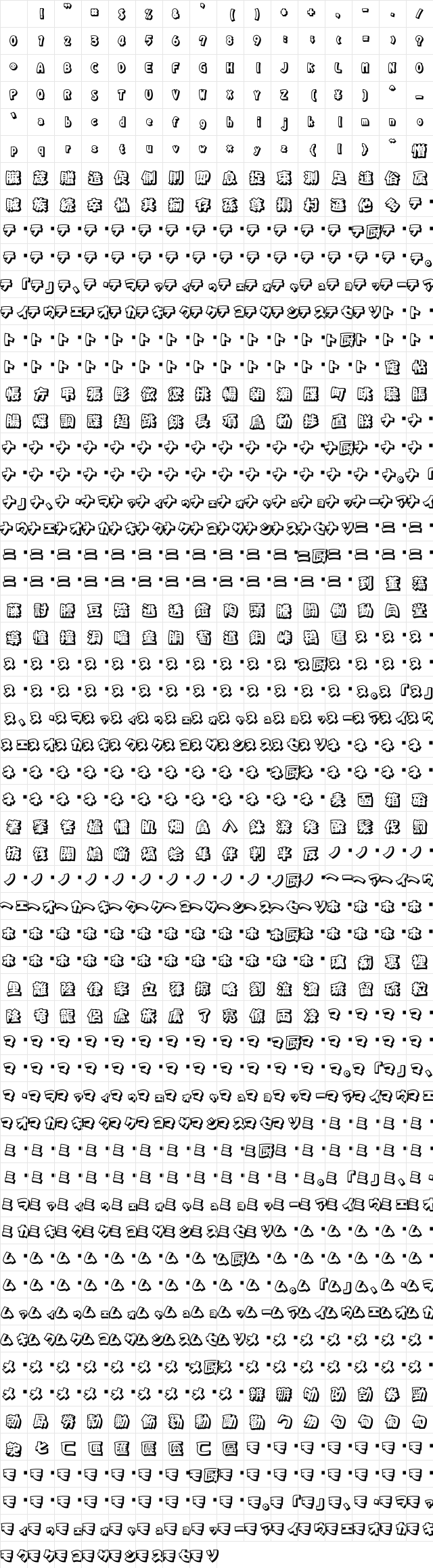
Complete HGPrettyFrankHS Heavy glyph index. Displaying only characters natively supported by HGPrettyFrankHS Heavy font.
HGPrettyFrankHS is a composed and adaptable typeface that performs quietly and consistently across a wide range of design contexts.